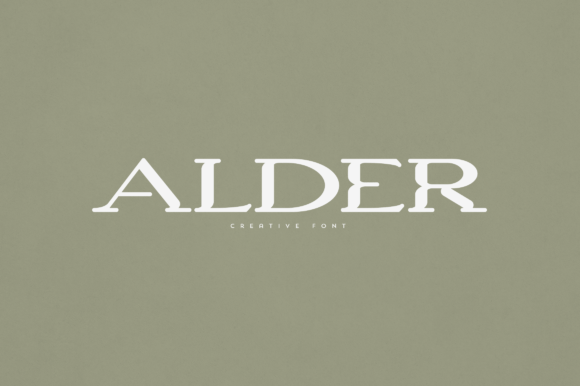
The Alder Font: Elevate Your Typography with Elegance and Versatility
I’ll never forget the moment I stumbled upon the Alder font while working on a branding project for a luxury home goods client. I had spent hours scouring font libraries and marketplaces, but nothing seemed quite right – until I saw Alder. Its elegant lines and versatile charm instantly captured my attention, and I knew I had found the perfect fit. In this article, I’ll share my experience with Alder, its features, and how to make the most of this stunning font in your designs.
An Honest Review of Alder Font
What I Love About Alder ✨
- ✅ Elegant and sophisticated design that adds a touch of luxury to any project
- ✅ Highly versatile, suitable for a wide range of applications, from logos and branding to packaging and magazine headers
- ✅ Beautifully crafted to work seamlessly with both digital and print media
- ✅ Easy to read, even at smaller font sizes
- ⚠️ Some users may find the font too ornate for very casual or playful projects
A Practical Guide to Using Alder Font
- Experiment with OpenType features like glyphs and stylistic alternates to add visual interest
The Story Behind Alder Font
Alder was designed by a team of typographers who aimed to create a font that would bring a touch of sophistication and elegance to any project. Inspired by classic serif fonts, Alder combines traditional elements with modern flair, making it perfect for a wide range of applications.
| Is Alder suitable for body text? | Yes, Alder is designed to be readable even at smaller font sizes, making it suitable for body text. |
| Does Alder support OpenType features? | Yes, Alder supports OpenType features like glyphs and stylistic alternates, which can add visual interest to your designs. |
| Is Alder available in different weights or styles? | Alder comes in several weights and styles, allowing you to choose the perfect variation for your project. |
In conclusion, Alder font is a versatile and elegant addition to any designer’s toolkit. Its sophisticated lines, beautiful OpenType features, and wide range of applications make it perfect for branding, packaging, and more. Give Alder a try and elevate your typography to new heights!